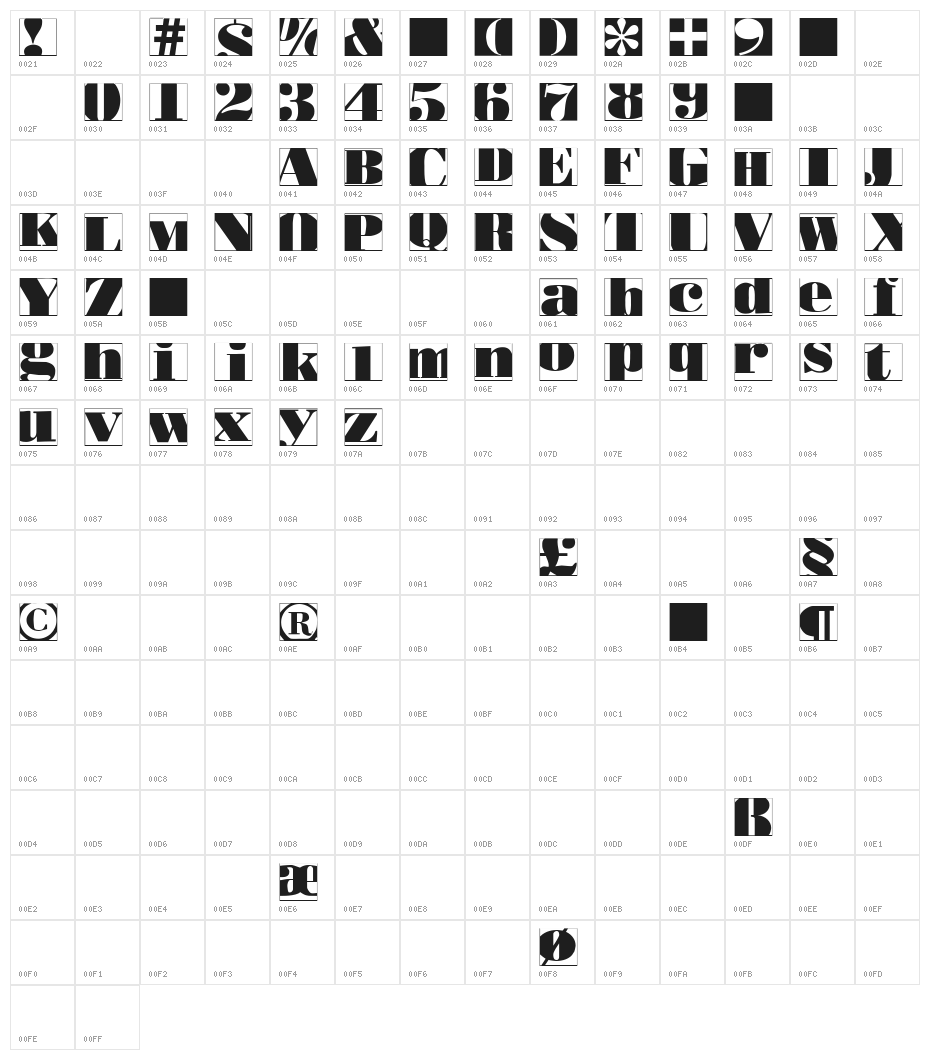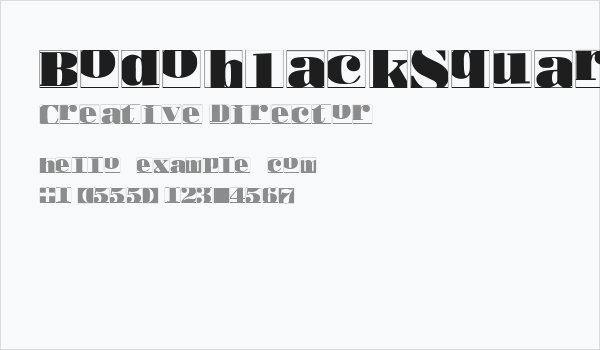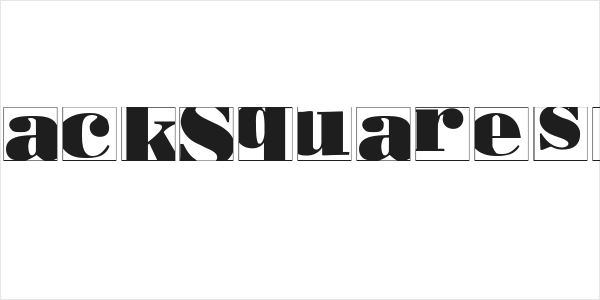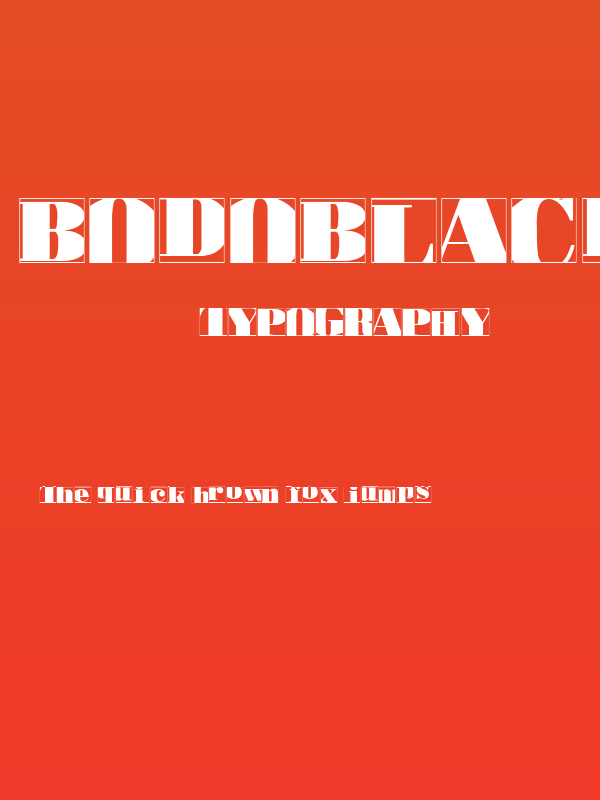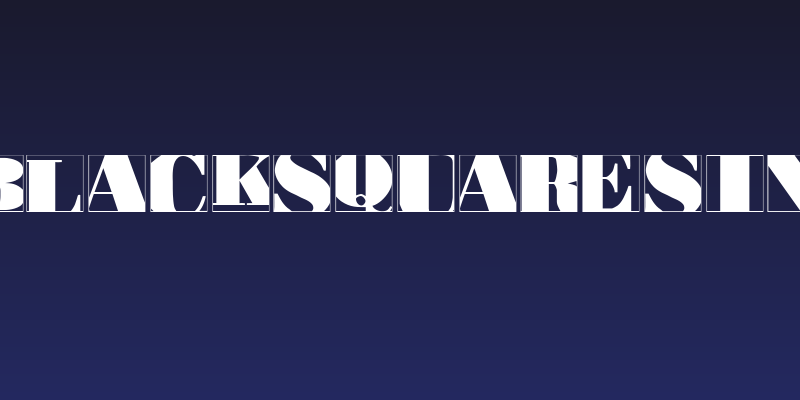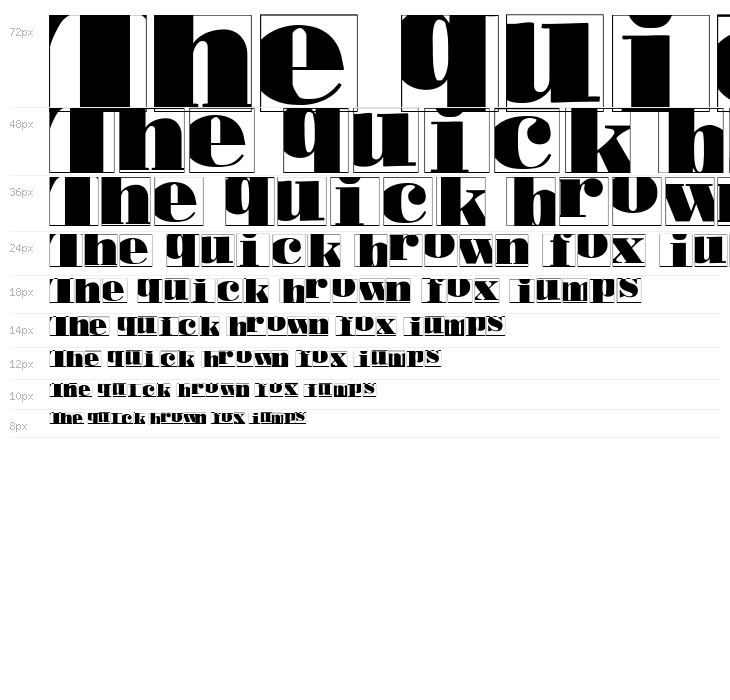
BodoblackSquaresInvers Font
BodoblackSquaresInvers Description
This font features a bold and striking design with a high contrast between thick and thin strokes, creating a dramatic visual impact. Each character is enclosed within a square, enhancing its geometric and structured appearance. The use of negative space within the letters adds a unique artistic flair, making it stand out in any design. The uppercase and lowercase letters maintain a consistent style, while the numbers and special characters follow the same bold and structured theme. This font is ideal for projects that require a strong visual presence and a modern, artistic touch.
| Overall Style | Modern, Artistic |
| Proposed Projects | Ideal for posters, branding, album covers, and modern art projects. |